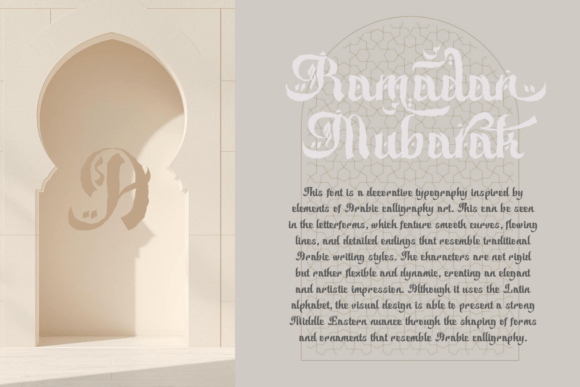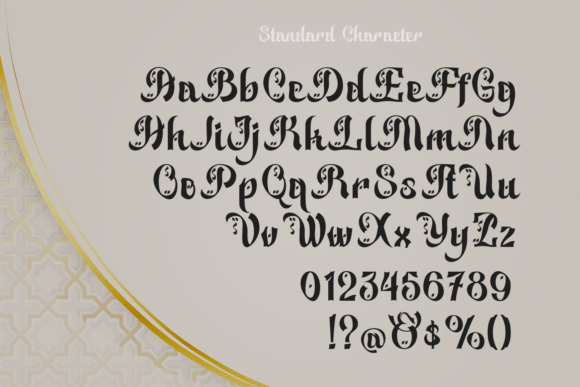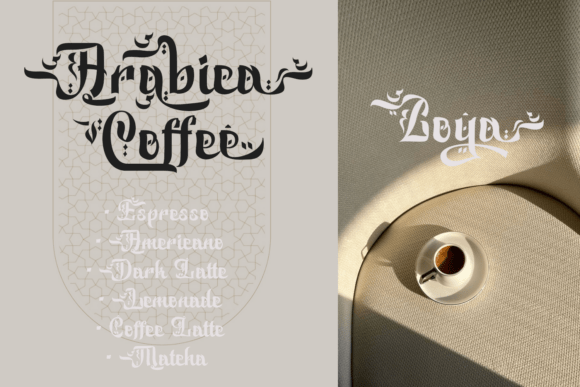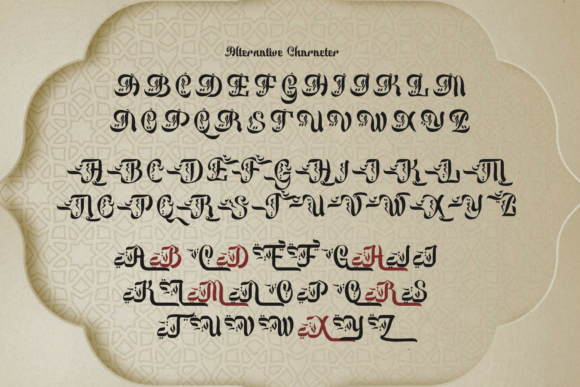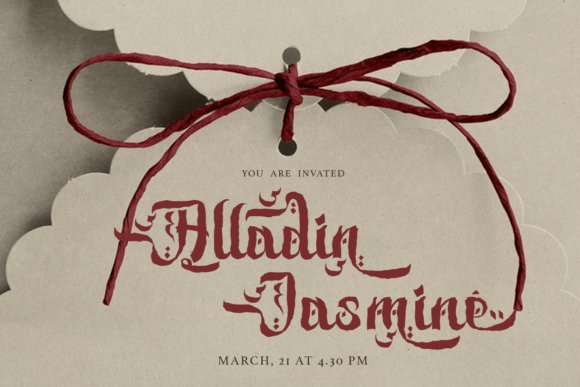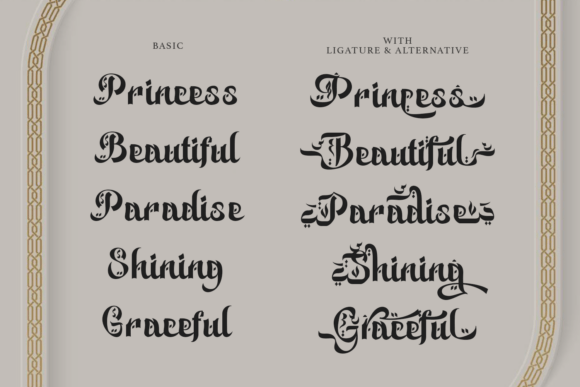
Discover the Timeless Elegance of the Bakhtiar Font
Have you ever been captivated by the intricate patterns and flowing scripts of ancient Middle Eastern calligraphy? Perhaps you’ve stumbled upon a vintage manuscript or a beautifully crafted Arabic inscription that has left you in awe. For designers seeking to infuse their work with the essence of classical elegance, the Bakhtiar Font is a game-changer.
This majestic display font masterfully adapts the fluid strokes and sharp diacritics of traditional Kufic and Naskh scripts into a modern Latin alphabet, creating a unique visual experience that’s both regal and sophisticated. Whether you’re designing a luxury brand, a cultural event, or a historical project, the Bakhtiar Font is an extraordinary choice that will transport your audience to a world of legendary power and global charm.
Bakhtiar Font Key Features
- Font Family: Bakhtiar is a Persian font family, specifically designed for the Persian language.
- Unique Characteristics: Bakhtiar font features a unique blend of traditional Persian calligraphy and modern typography, making it suitable for various applications, including books, magazines, and digital media.
- Language Support: The font family supports the Persian language, including all its dialects and variations.
- Font Styles: Bakhtiar font is available in various styles, including Regular, Bold, Italic, and Bold Italic, offering users flexibility in their design choices.
Bakhtiar Font Review
Overall, I have mixed feelings about the Bakhtiar font. Here are some of its strengths and weaknesses.
- Unique Script: Bakhtiar has a beautiful, unique script that is perfect for creating a sense of elegance and sophistication.
- Calligraphy Style: The font’s calligraphy style is well-executed and adds a touch of refinement to any text.
- Customization Options: The font offers a range of customization options, making it easy to adjust the style to suit your needs.
- Limited Weight Options: The font is limited to a few weight options, which can make it difficult to create a consistent look across different text sizes.
- Lack of Italic: There is no italic version of the font, which can make it challenging to create emphasis or contrast in your text.
- Not Suitable for Body Text: Due to its script nature, Bakhtiar is not well-suited for large blocks of body text, where readability is a top priority.
Overall, I think Bakhtiar is a beautiful font that is perfect for headings, titles, and other decorative text. However, it may not be the best choice for body text or situations where a wide range of weight options are required.
The Bakhtiar Font is ideal for creating traditional and cultural designs. To get the most out of it, use it in conjunction with other cultural graphics and fonts.
– Creating traditional wedding invitations and decorations.
– Designing cultural and historical posters.
– Adding a touch of elegance to business cards and resumes.